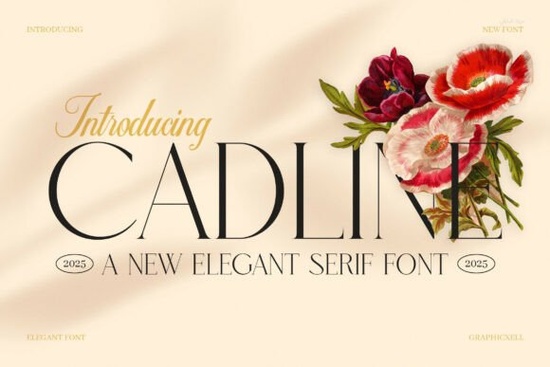
If you're looking for a serif font that balances elegance with boldness, Cadline Font is worth a closer look. It’s designed to make headlines pop, logos feel premium, and packaging stand out all while staying clean and readable. Whether you’re a small business owner creating product labels, a designer working on a magazine layout, or a print-on-demand seller crafting custom mugs and posters, this font delivers strong visual impact without unnecessary complexity.
Cadline Serif blends classic serif structure with modern sharpness. Its thick-and-thin stroke contrast adds character, but not at the cost of legibility. The serifs are pronounced enough to feel intentional, yet refined enough to suit luxury or contemporary branding. You’ll find it especially useful when your project needs authority and style in equal measure.
What kinds of projects work best with Cadline Font?
This font shines where clarity meets confidence. Here are a few real-world uses that match its strengths:
- Brand identities – Logos for fashion, beauty, or boutique businesses benefit from its high-end tone.
- Printed packaging – Think perfume boxes, artisanal food labels, or premium skincare places where typography conveys quality.
- Editorial design – Magazine covers, book jackets, or feature spreads that need a commanding headline font.
- Promotional materials – Posters, event banners, or social media graphics that must grab attention quickly.
Because Cadline pairs well with simple sans serif fonts (like Helvetica or Montserrat), you can easily create balanced layouts. Use Cadline for headings and a neutral sans for body text it’s a reliable combo that keeps your message clear and your design polished.
Is Cadline easy to use for non-designers?
Yes. One of its standout features is thoughtful spacing and consistent letterforms, so you won’t need to tweak kerning or tracking just to make it look right. That’s a big plus if you’re using tools like Canva, Adobe Express, or even basic word processors for small business flyers or Etsy shop banners.
It also includes full language support for Western and Central European languages, which makes it practical for global audiences or multilingual projects. And because it’s optimized for both print and digital, your Instagram post will look as sharp as your printed business card.
If you enjoy exploring similar options, you might also like the Glamor Font, another elegant serif with a distinct personality. But if you want something with more structural boldness and modern edge, Cadline stands out in its own right.
How does Cadline compare to other modern serifs?
Many contemporary serifs lean either too delicate or overly decorative. Cadline avoids both extremes. It’s assertive without being aggressive, stylish without sacrificing function. The curves are smooth, the vertical stress feels grounded, and the overall rhythm of the typeface flows naturally even in all-caps settings.
Unlike some display fonts that only work at large sizes, Cadline remains legible down to medium sizes, giving you flexibility across applications. That reliability is why it’s a smart pick for creatives who need one font to handle multiple roles without constant swapping.
Who should consider adding Cadline to their toolkit?
This font is ideal if you:
- Run a small brand and want affordable, professional-looking typography
- Create digital products (like templates or planners) that need standout headers
- Design physical goods (apparel, mugs, notebooks) where text is part of the aesthetic
- Prefer fonts that “just work” without hours of fine-tuning
It’s not meant for dense body text but that’s not its purpose. Used as intended (for titles, logos, short phrases), it delivers exactly what it promises: confident, clean, and classy communication.
Before you download, ask yourself: Do I need a serif that commands attention while still feeling refined? If yes, Cadline is likely a strong fit.
Quick checklist before you use Cadline Font
- ✅ Use it for headlines, logos, or short impactful text not paragraphs
- ✅ Pair it with a minimalist sans serif for contrast and balance
- ✅ Test it at different sizes to confirm legibility in your specific use case
When used thoughtfully, Cadline Font adds instant polish to your creative work without overcomplicating your process.